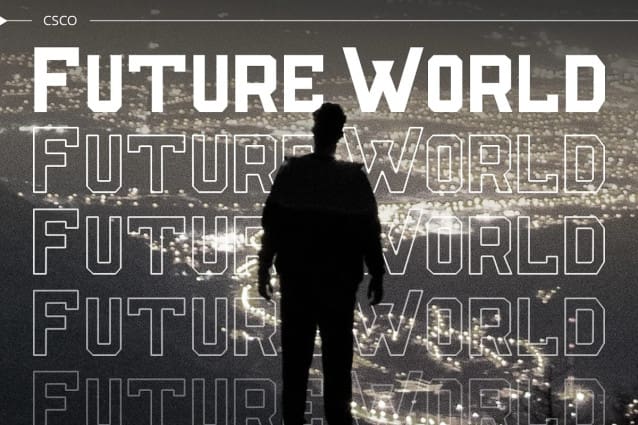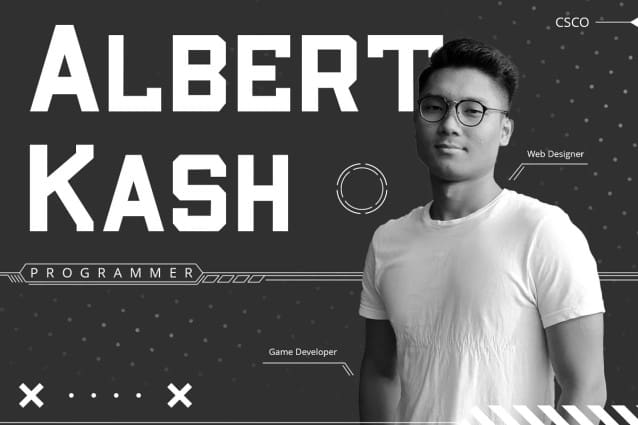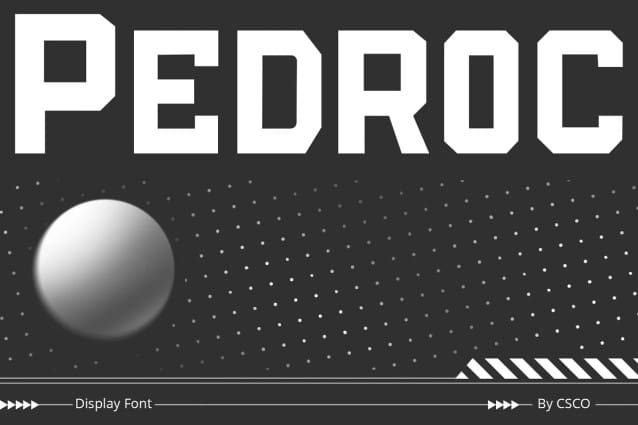
Pedroc Display Font
Pedroc Display Font is a Future-Inspired Display Typeface, a captivating Display Typeface, is born from the inspiration of future technology, thus infusing an industrial touch into its design.
Pedroc’s design is a testament to sleek and futuristic aesthetics. This makes it a standout choice for modern and tech-inspired projects.
This font’s adaptability shines in various contemporary design contexts. As a result, it’s suitable for a range of creative endeavors, from branding to posters.
Future-Inspired Display Typeface guarantees your content remains engaging and high-tech. Consequently, it captivates your audience with its modern industrial charm, ensuring your message resonates.
In summary, Pedroc Display Font  is the font for those seeking a futuristic, industrial touch. Its sleek and versatile design ensures it fits seamlessly into contemporary creative projects. Whether it’s for tech-inspired branding, posters, or other modern designs, Pedroc is the font that keeps your content engaging and high-tech, appealing to a diverse audience with its modern industrial charm.